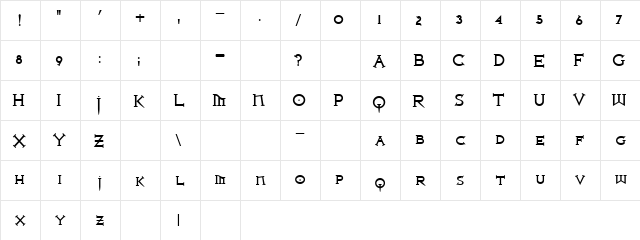
Iron League smallcaps Bold
Design Context for Iron League smallcaps Typeface
Iron League smallcaps takes a measured approach to typography — its balanced proportions and neutral character make it a reliable workhorse for both digital and print work. The heavy weight commands attention and anchors typographic hierarchies.